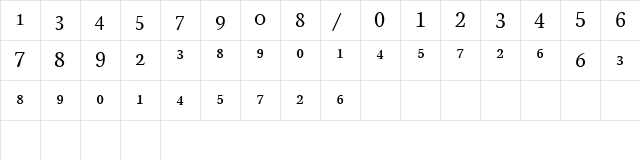
StonePrintFracs Regular
Design Context for StonePrintFracs Typeface
StonePrintFracs is a composed and adaptable typeface that performs quietly and consistently across a wide range of design contexts.